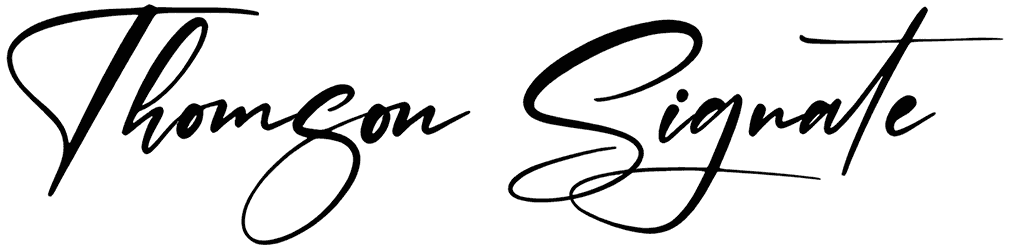
Thomson Signate Font
Thomson Signate is a great way to add personality to your work. Whether writing a love letter or creating a fun invitation, this signature font will add a special touch to your document.
The thin lines and pleasant twists of this font mean that you can immediately search for a new font and get the results for your unique project right here. So if you want to create a robust, feminine feel in your writing, shine with this handwritten font.